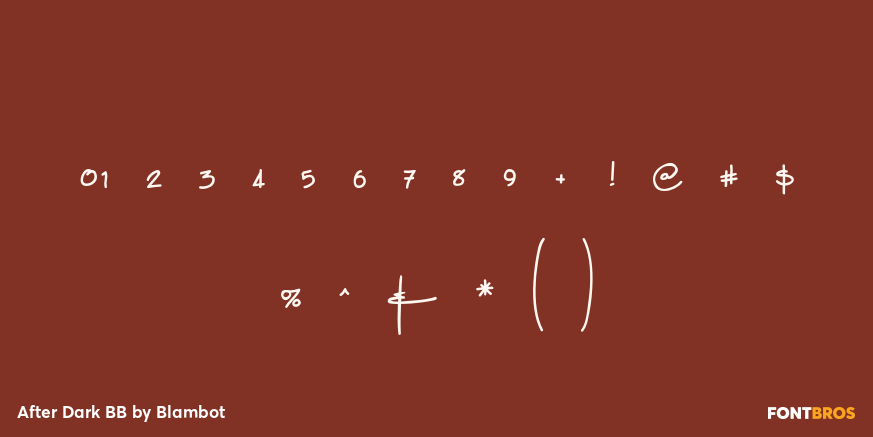
After Dark BB
Font Family by Blambot
This handwritten font has delicate, long lowercase characters and huge, care-free caps.
Both dangerous and feminine, perfect for signing your signature, After Dark has a large assortment of European characters to assist in your late-night adventures.